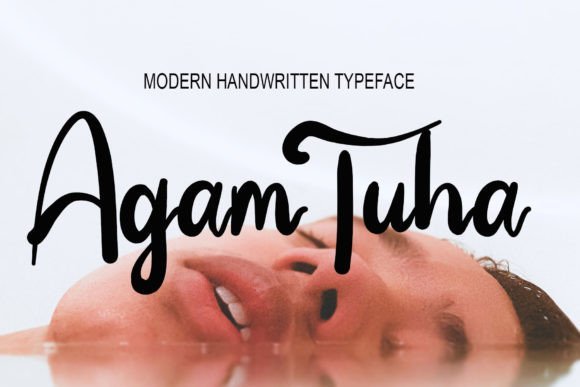
Unleash Your Creativity with Agam Tuha Font
Have you ever stared at a blank canvas, struggling to find the perfect font to bring your design to life? You’re not alone. We’ve all been there, searching for that elusive combination of style and personality to elevate our creations. But what if I told you that there’s a font that can make your designs stand out from the crowd?
Meet Agam Tuha Font, a modern handwritten typeface that’s perfect for adding a touch of whimsy to your next project. Whether you’re designing a website, creating wedding invitations, or crafting a business card, Agam Tuha Font is the perfect companion to help you bring your vision to life. With its unique playfulness and stylish flair, this font is a valuable asset for designers looking to add a personal touch to their work.
Agam Tuha Font Key Features
- Character Set: The font includes a comprehensive character set, covering multiple languages, including Latin, Cyrillic, and Devanagari scripts.
- Unique Characteristics: Agam Tuha Font features a unique blend of traditional and modern design elements, with intricate details and subtle nuances that make it stand out from other fonts.
- Font Styles: Agam Tuha Font includes multiple font styles, including Regular, Bold, Italic, and Bold Italic, providing users with a range of options for varying text emphasis and visual appeal.
Agam Tuha Font Review
Overall, I’m impressed with Agam Tuha Font’s unique blend of traditional and modern elements ✨. The font’s intricate details and ornaments make it perfect for designers seeking a distinctive look for their projects. It’s also suitable for use in various contexts, from book titles to magazine covers.
The font’s Main Features:
- Elegant, ornate details
- Beautiful script and italic variations
- Highly legible, even at smaller sizes
- Perfect for adding a touch of traditional elegance to modern designs ✨
However, there are a few limitations to consider ⚠️. The font may not be the best choice for text-heavy content, as its intricate details can make it difficult to read at larger sizes. Additionally, the font’s compatibility with certain software and systems may vary.
Overall, I’d recommend Agam Tuha Font to designers seeking a unique, high-end look for their projects. While it may have some limitations, its distinctive features make it a valuable addition to any design arsenal.
Tips for Getting the Most Out of Agam Tuha Font
To get the most out of the Agam Tuha font, consider the following tips:
- Use it for titles and headings to add a touch of elegance.
- Pair it with sans-serif fonts for a modern and clean look.
The Agam Tuha font is suitable for a variety of use cases, including:
- Branding
Alternatives to Agam Tuha Font for Designers
Playfair Display is a luxurious, elegant serif font suitable for headings, titles, and other prominent text elements. It is ideal for use in high-end branding, magazines, and luxury products. Compared to Agam Tuha Font, Playfair Display has a more refined and sophisticated feel, making it suitable for projects that require a touch of sophistication.
Great Vibes is a modern, elegant script font perfect for creating a sense of warmth and friendliness. It is suitable for use in branding, invitations, and other applications where a personal touch is required. Compared to Agam Tuha Font, Great Vibes has a more relaxed and casual feel, making it suitable for projects that require a sense of approachability.
Carolyna Pro is a modern, sans-serif font designed for use in digital applications. It is ideal for use in branding, packaging, and other projects where a clean and modern aesthetic is required. Compared to Agam Tuha Font, Carolyna Pro has a more minimalist and clean feel, making it suitable for projects that require a modern and professional look.